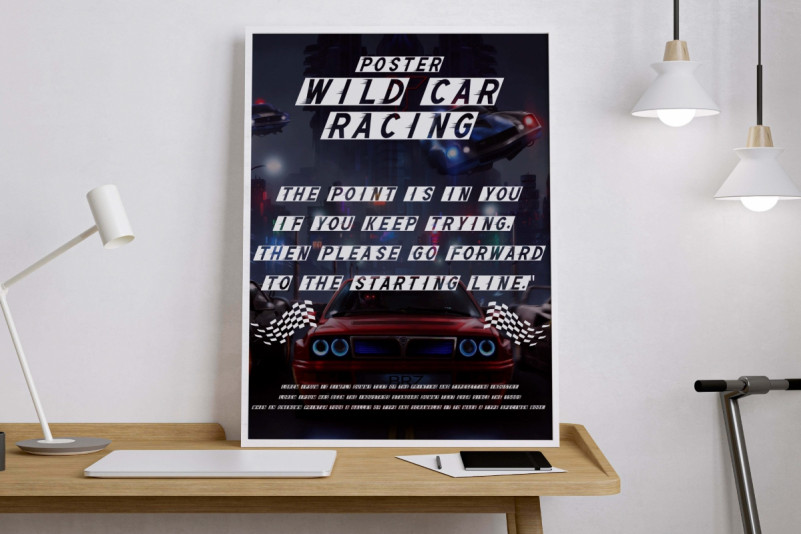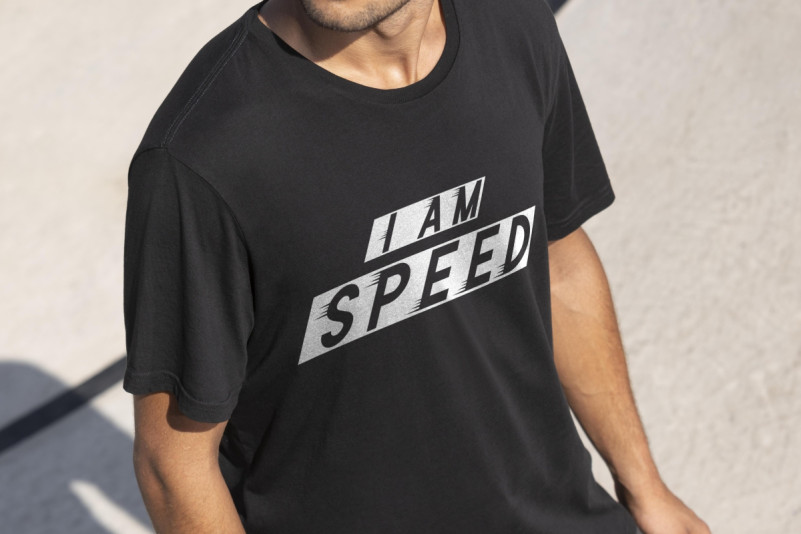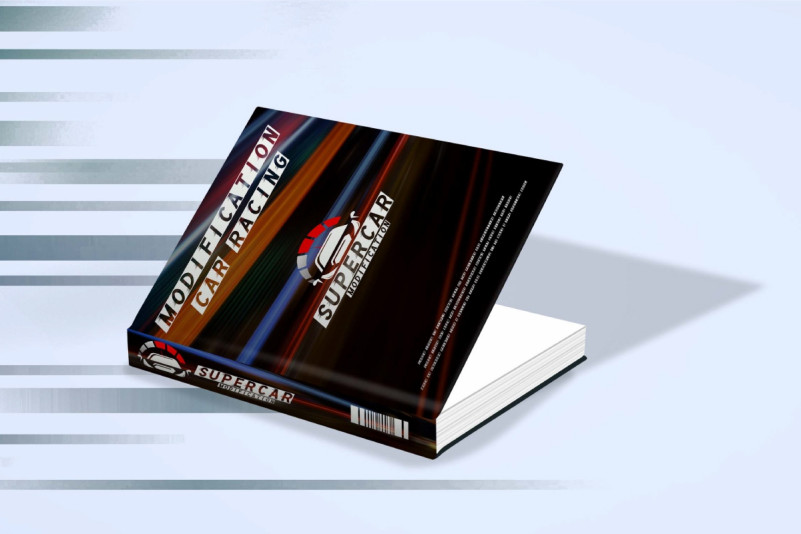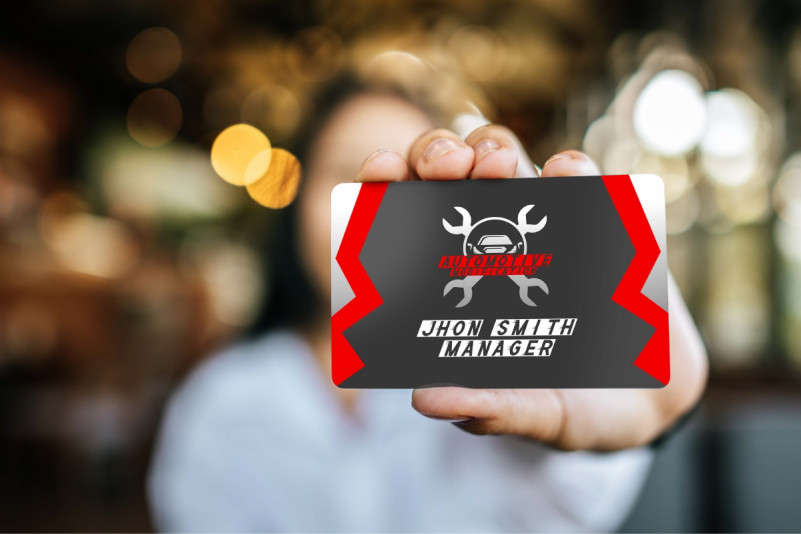
Fast Speed Font
Fast Speed Display Font is a sporty speedy decorative display font. This font is packaged in a box with a speed effect on each character which makes it even cooler. It would be perfect for many industries, such as accessories, advertisement, automotive, café, clothing brand, festival event, film, handicrafts, machine shop, printing, publishing, race, sport, and more!
Fast Speed Font includes the ALL CAPS set for Uppercase and Lowercase Base Characters, Numerals and Punctuation. This font has a Swoosh character that will make you believe that it is the perfect choice for designs, such as billboard, business card, cover, custom design, frame art, header, labels, poster, quote, product packaging, signage, website, etc.